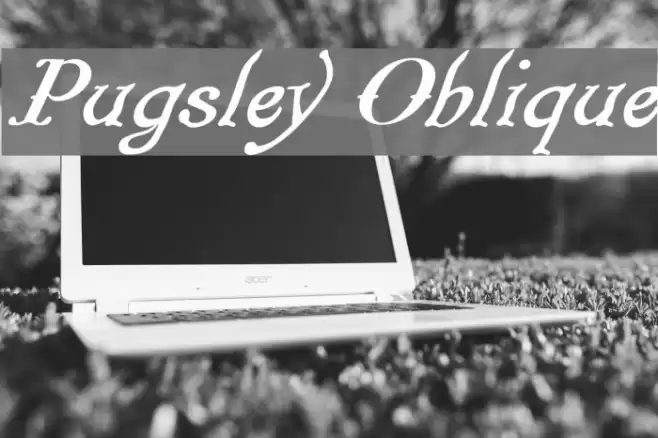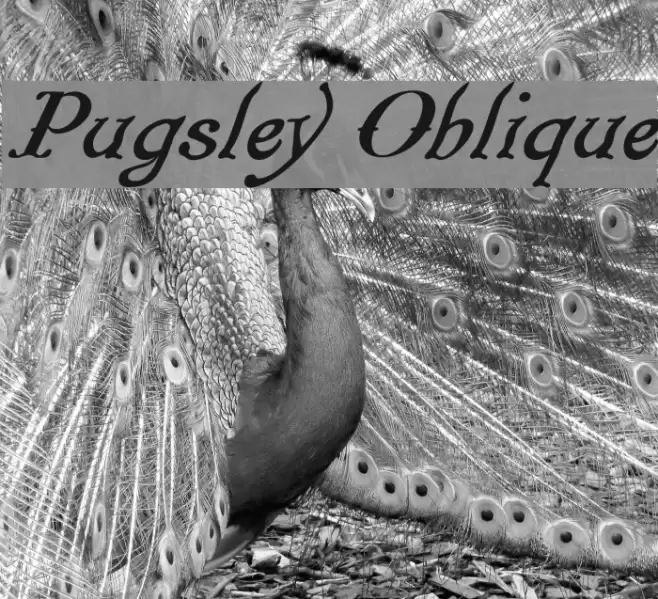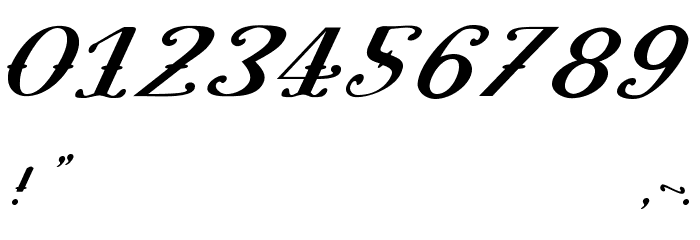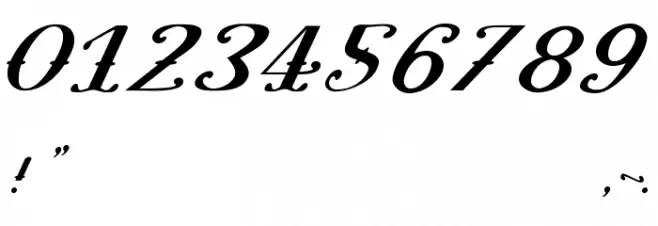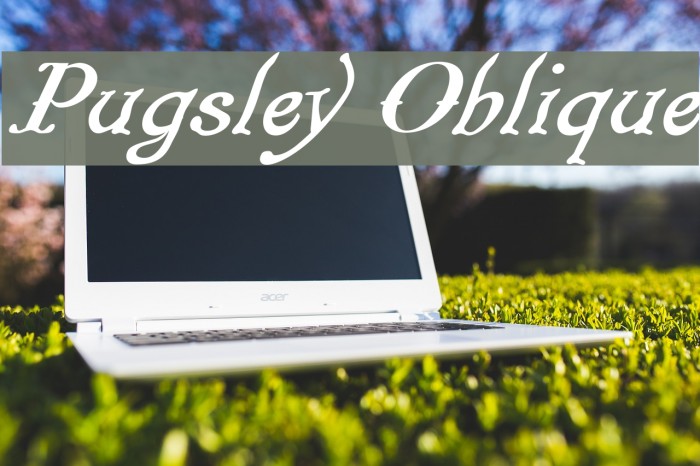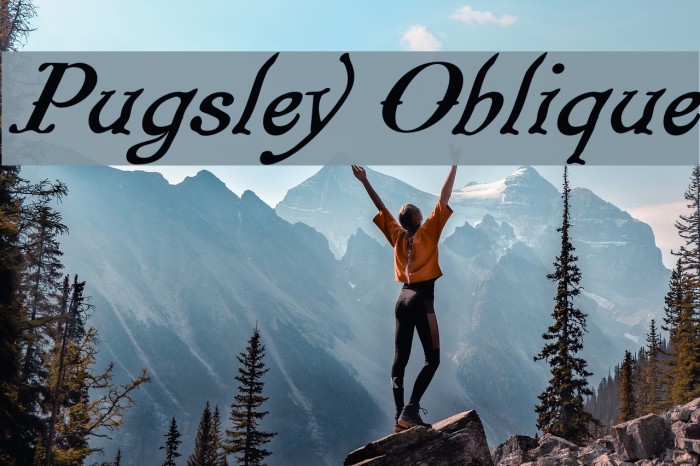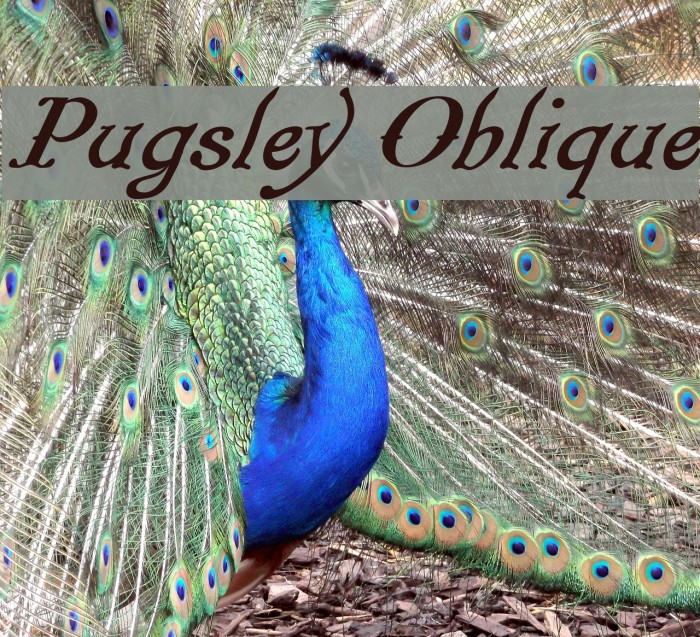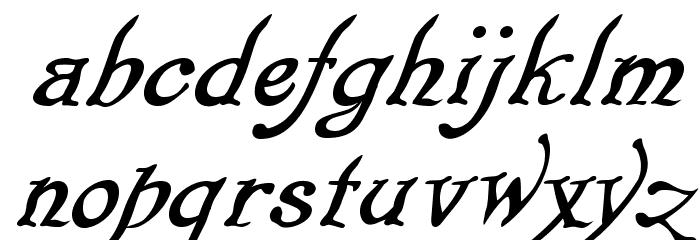
Pugsley Oblique Font
Pugsley Oblique Description
This font features a playful and whimsical style with a distinct oblique slant, giving it a dynamic and energetic appearance. The characters are adorned with subtle decorative elements, adding a touch of elegance and flair. The uppercase letters are bold and prominent, while the lowercase letters maintain a consistent flow, enhancing readability. The numerals are distinct and easy to distinguish, making them suitable for various applications. The special characters are creatively designed, maintaining the overall aesthetic of the font.
A playful, oblique font with decorative elements and dynamic style from Uncategorized fonts.
- Proposed Projects: Ideal for creative projects such as invitations, greeting cards, posters, and branding materials that require a touch of whimsy and elegance.
- Use Case: Headlines, Logos, Invitations